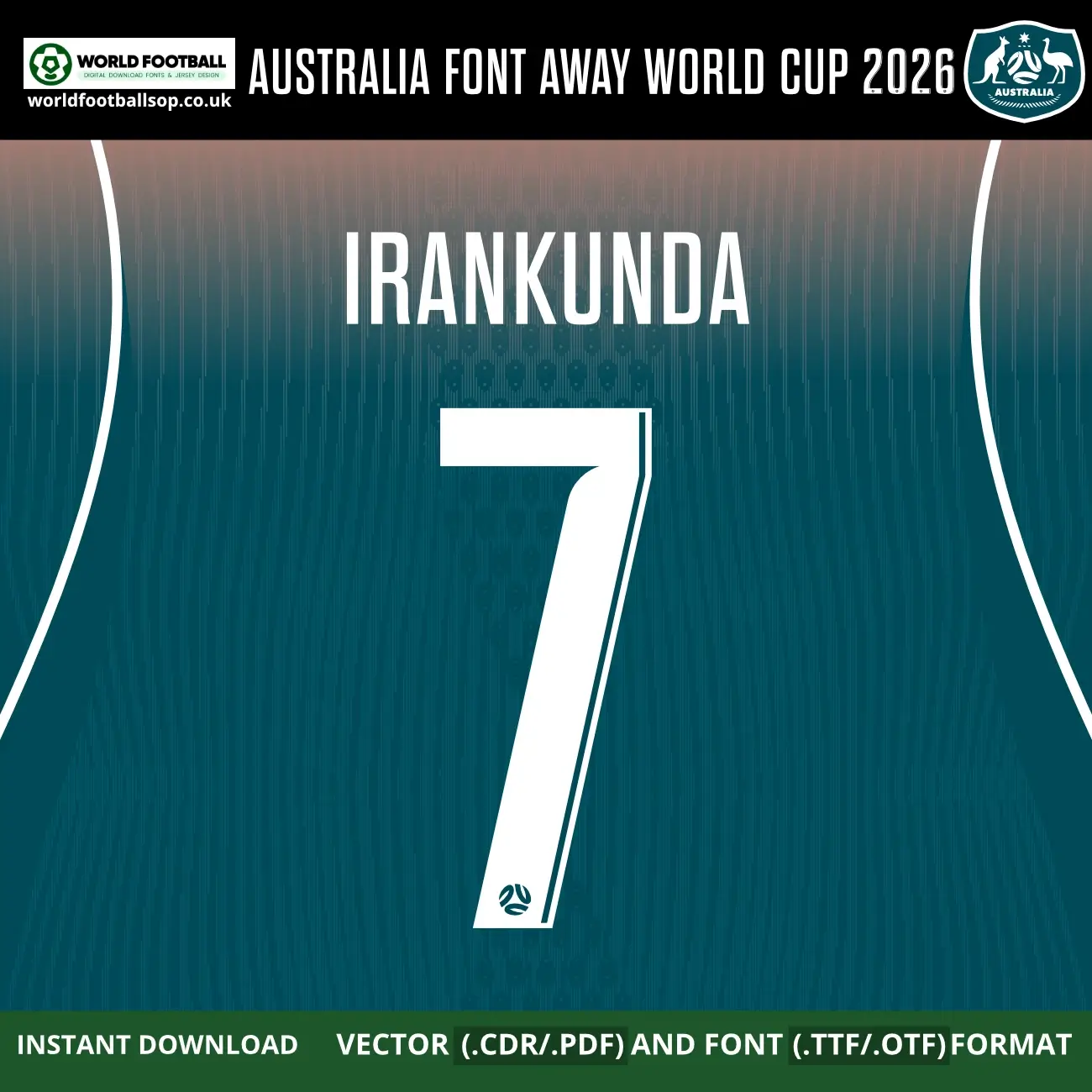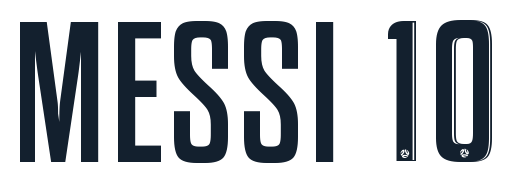
Australia Away Font World Cup 2026 - Official‑style Jersey Typography
This Australia Away Font World Cup 2026 kit recreates the bold, clean lettering used on the Socceroos' striking teal away shirts for the 2026 FIFA World Cup in USA, Mexico and Canada. The tall, rounded numbers and letters feature a sharp inner-line detail with the Football Australia crest embedded on every vector character, perfectly capturing the modern look of Australia's official away kit typography against the deep teal gradient background. It is perfect for fans, designers and printers who want authentic‑looking names and numbers on custom Socceroos away kits and football graphics.
The font football is supplied in both desktop formats (TTF/OTF) and scalable vector files so you can work comfortably in your favourite design software. The crisp white lettering on a deep teal gradient away kit background - transitioning from coral-orange at the top to dark teal at the bottom - seen in the previews mirrors Australia's official away colour palette, making your mockups and prints look match‑ready. Every vector number includes the embedded Football Australia (FA) crest logo for maximum authenticity.
Football Australia crest logo embedded on every vector number and letter
Full uppercase alphabet A-Z and numbers 0-9 with extended Latin accents (Á, Ç, É, Ñ, Ö, Š)
Preview layouts showing complete number set and example name/number combo - IRANKUNDA 7
World Cup accuracy: Inspired by the exclusive Australia Away Font World Cup 2026, not a generic typeface
High legibility: Bold, rounded geometric forms keep numbers clear on both TV and print designs while maintaining Australia's unique teal away identity